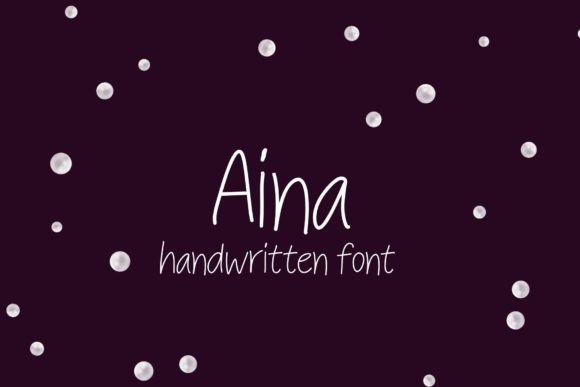
Discovering the Perfect Typographic Partner
Have you ever been in the midst of a creative project, staring at a blank canvas, and suddenly, the perfect font pops into your head? That’s exactly what happened to me when I first laid eyes on Aina Font – a simple, yet elegant handwritten font that adds a touch of originality to any design.
Aina Font is more than just a font; it’s a tool for designers to breathe life into their creations. With its clean lines and minimalistic charm, it’s the perfect companion for any project that requires a unique typographic voice. Whether you’re a seasoned pro or a budding designer, Aina Font offers a versatility that’s hard to resist.
For designers, Aina Font is a valuable asset that can elevate their work and make it stand out in a crowded market. Its simplicity and elegance make it a great choice for a wide range of projects, from branding and advertising to editorial and packaging design.
Aina Font Key Features
- Unique Characteristic: Aina Font is designed with a unique blend of modern and traditional elements, creating a distinctive and elegant aesthetic.
Aina Font Review
When I first laid eyes on the Aina Font, I was immediately drawn to its modern and elegant design. ✨ The font’s clean lines, rounded edges, and subtle flair give it a sophisticated feel that’s perfect for a wide range of applications, from branding and marketing materials to digital interfaces and print publications.
One of the standout features of Aina Font is its incredible legibility, making it a great choice for body text and longer blocks of content. ✨ The font’s x-height is well-balanced, and the letterforms are designed to work seamlessly together, resulting in a harmonious and cohesive look.
While Aina Font is an excellent choice for many projects, there are some limitations to consider:
- ⚠️ Limited language support: Aina Font only supports Latin-based languages, which may limit its use in projects that require support for other languages.
- ⚠️ Not ideal for headlines: While Aina Font is great for body text, it may not be the best choice for headlines, as it can appear somewhat bland and unremarkable.
Aina Font is a solid choice for designers who need a clean, modern, and highly legible font. While it may have some limitations, its strengths far outweigh its weaknesses, making it a great addition to any design toolbox.
Getting the Most Out of Aina Font
Use Aina Font for headings and titles to create a unique and eye-catching look.
Pair Aina Font with other fonts to create a visually appealing contrast.
Experiment with different font sizes and styles to create a dynamic look.
Aina Font is ideal for:
– Advertising and marketing materials
– Editorial and publishing content
– Digital and print media